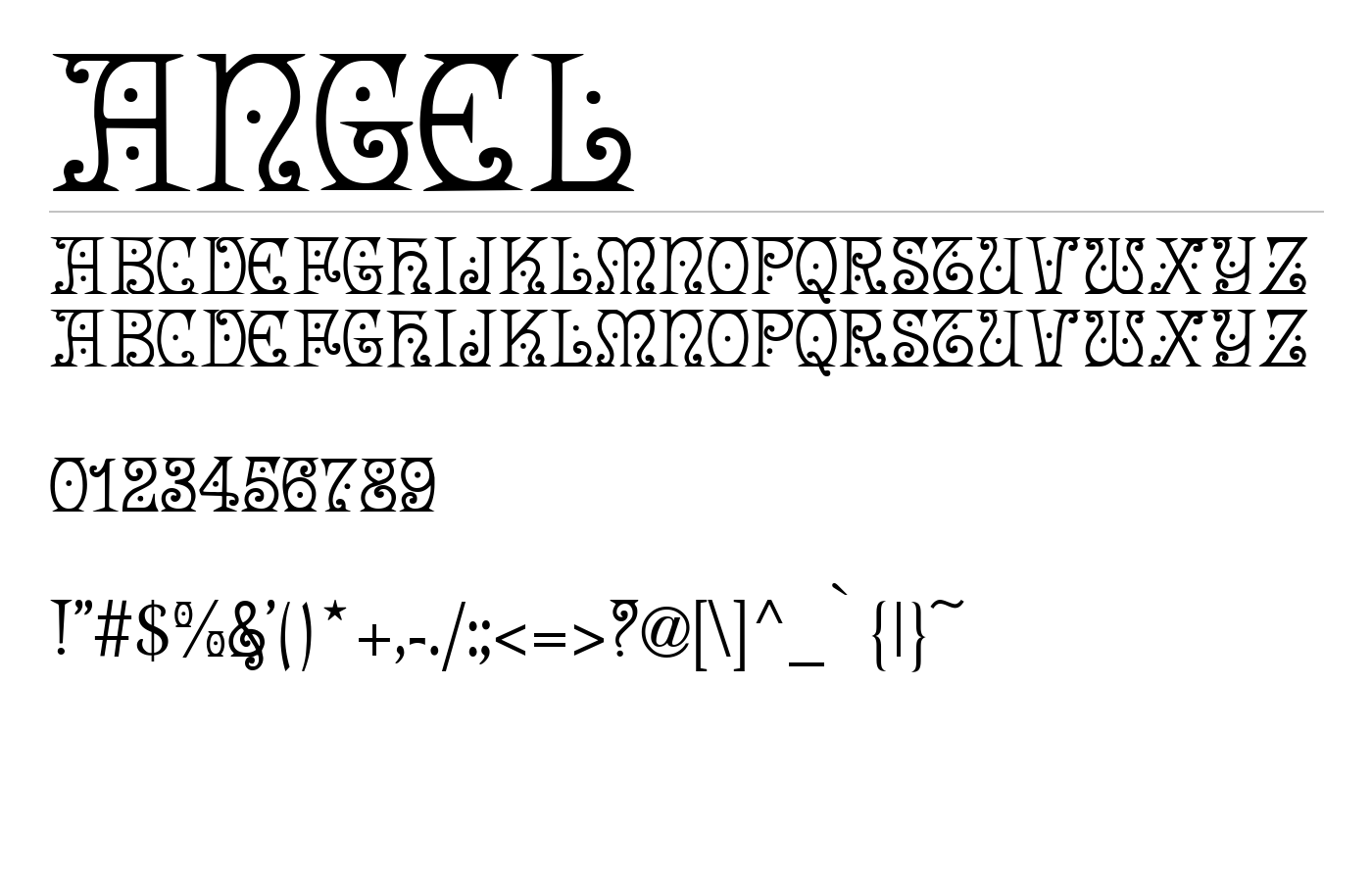
Angel Font is a decorative serif typeface with a bold, vintage flair characterized by intricate, curled details and high contrast between thick and thin strokes. Its unique letterforms evoke a whimsical and theatrical mood, making it ideal for eye-catching headlines, posters, and branding that seeks to stand out with a playful yet elegant style. This font works best in creative, artistic contexts where personality and flair are key.
Angel Font
About Angel Font